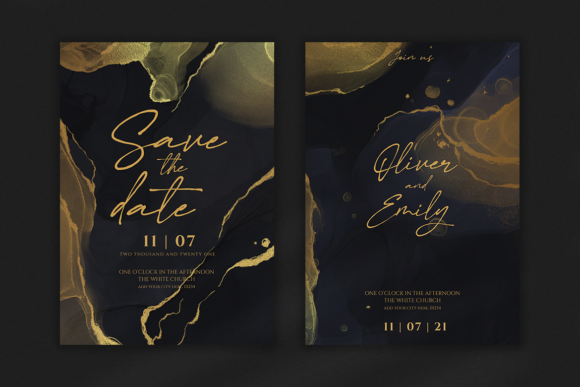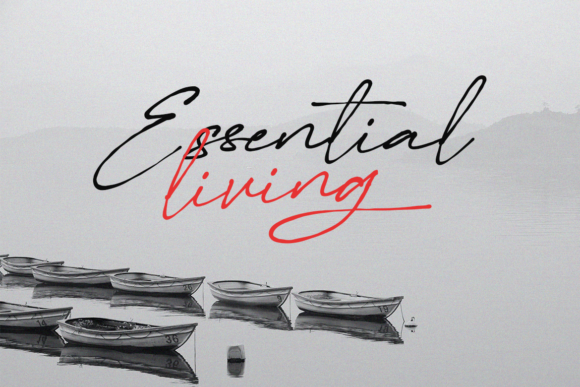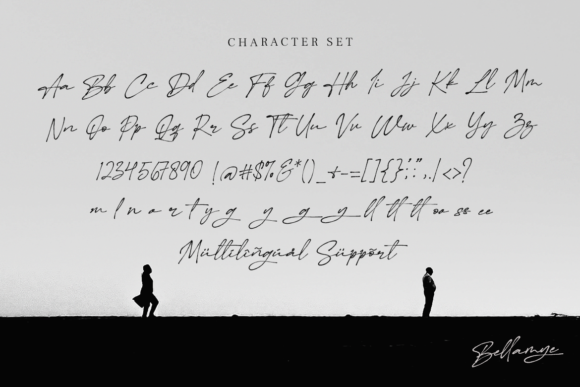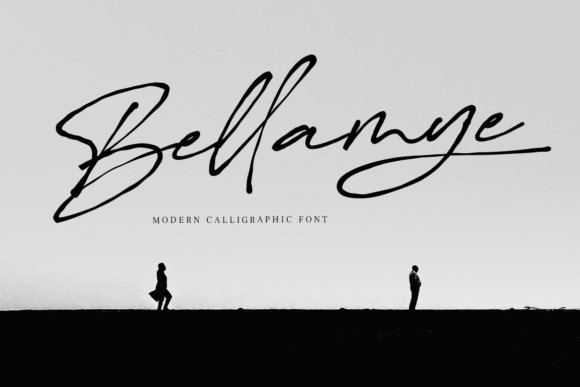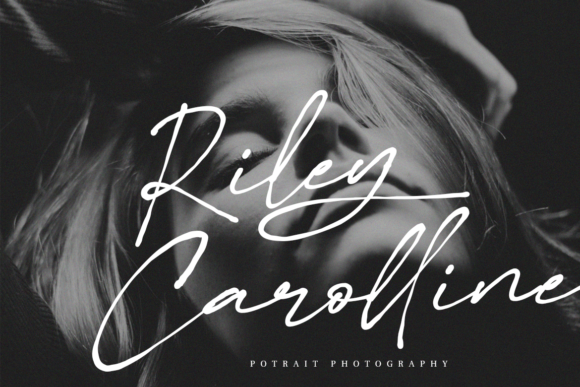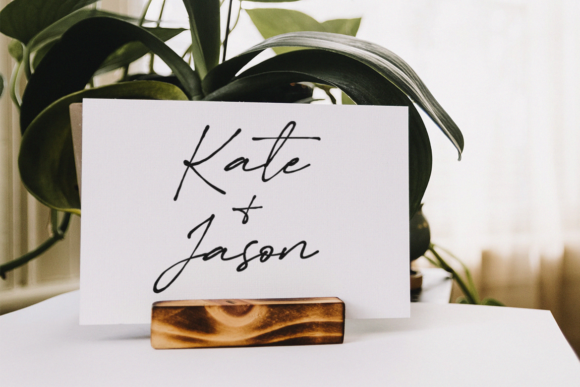
Bellamye Font: Elevate Your Designs with Elegance and Sophistication
In the world of typography, a font can make or break a design. It’s the perfect blend of style, elegance, and personality that transforms a simple project into a masterpiece. If you’re on the hunt for a font that exudes class, sophistication, and a touch of modernity, look no further than the Bellamye Font. This exquisite handwritten font is masterfully designed to capture the hearts of designers and crafters alike, making it a true favorite in the realm of typography.
The Essence of Bellamye Font
Bellamye Font strikes the perfect balance between traditional calligraphic influences and contemporary design elements. Its classy roots are evident in its fluid strokes and elegant letterforms, which are meticulously crafted to convey a sense of luxury and refinement. Yet, it feels surprisingly fresh and modern, making it versatile enough to be used in a wide range of projects, from wedding invitations and branding materials to digital content and packaging.
Why Fall in Love with Bellamye?
- Elegant and Refined: Bellamye’s sophisticated design makes it perfect for projects that demand a high level of elegance and poise. Whether you’re designing for luxury brands or creating beautiful wedding stationery, Bellamye adds a touch of class that’s hard to match.
- Versatile: Despite its calligraphic roots, Bellamye is incredibly versatile. It can be used for both digital and print projects, making it a valuable addition to any designer’s toolkit.
- Easy to Read: One of the standout features of Bellamye is its readability. Even at smaller sizes, it remains clear and legible, ensuring your message is always communicated effectively.
- Unique yet Familiar: Bellamye manages to be both unique and familiar at the same time. Its distinctive character ensures your designs stand out, while its classic influences keep it grounded and relatable.
Bring Your Projects to the Highest Levels
Incorporating Bellamye Font into your projects is a surefire way to elevate them to new heights. Here are a few ideas on how you can make the most of this stunning font:
- Branding and Logotypes: Use Bellamye to create memorable brand names and logotypes that exude elegance and sophistication.
- Wedding and Event Stationery: From invitations to thank-you cards, Bellamye adds a touch of romance and luxury to any wedding or event stationery.
- Packaging: Stand out on the shelves with beautifully designed packaging that uses Bellamye to convey a sense of premium quality.
- Digital Content: Whether it’s a blog post, social media graphic, or website header, Bellamye can add a level of sophistication to your digital content that’s hard to achieve with other fonts.
Bellamye Font is more than just a typeface; it’s a design statement. With its exquisite handwritten design, classy calligraphic influences, and contemporary freshness, it’s the perfect choice for designers and crafters looking to add a touch of elegance and sophistication to their projects. Whether you’re working on a luxury brand campaign, a wedding invitation, or any project in between, Bellamye is sure to become your new favorite font. So why wait? Fall in love with Bellamye and take your designs to the highest levels!